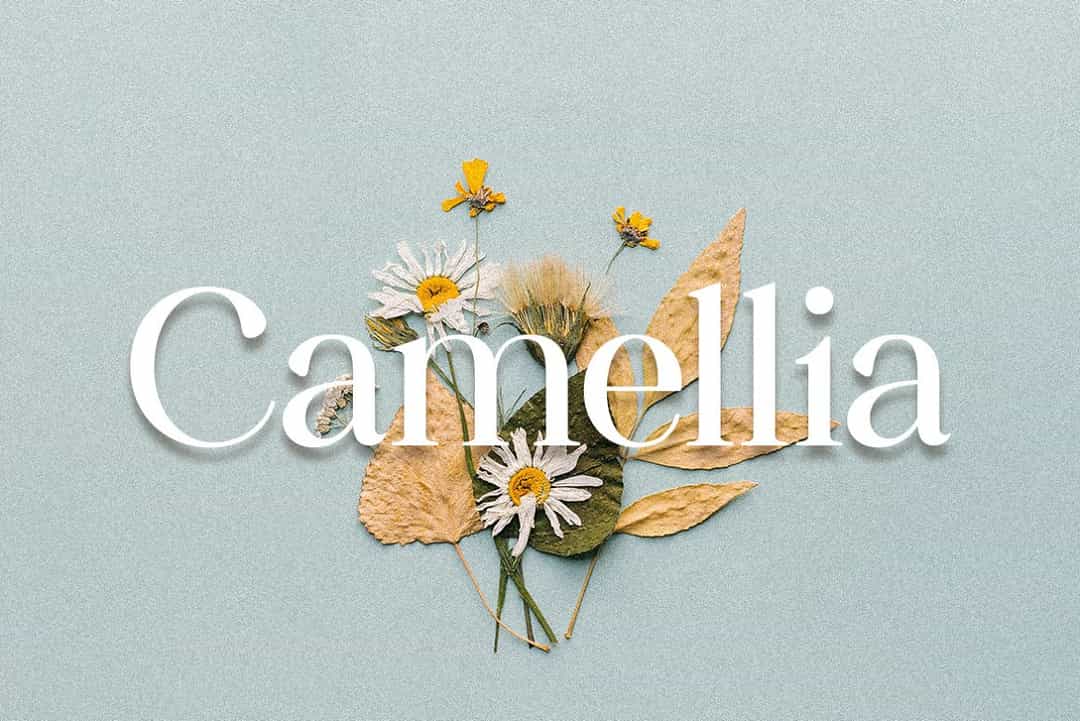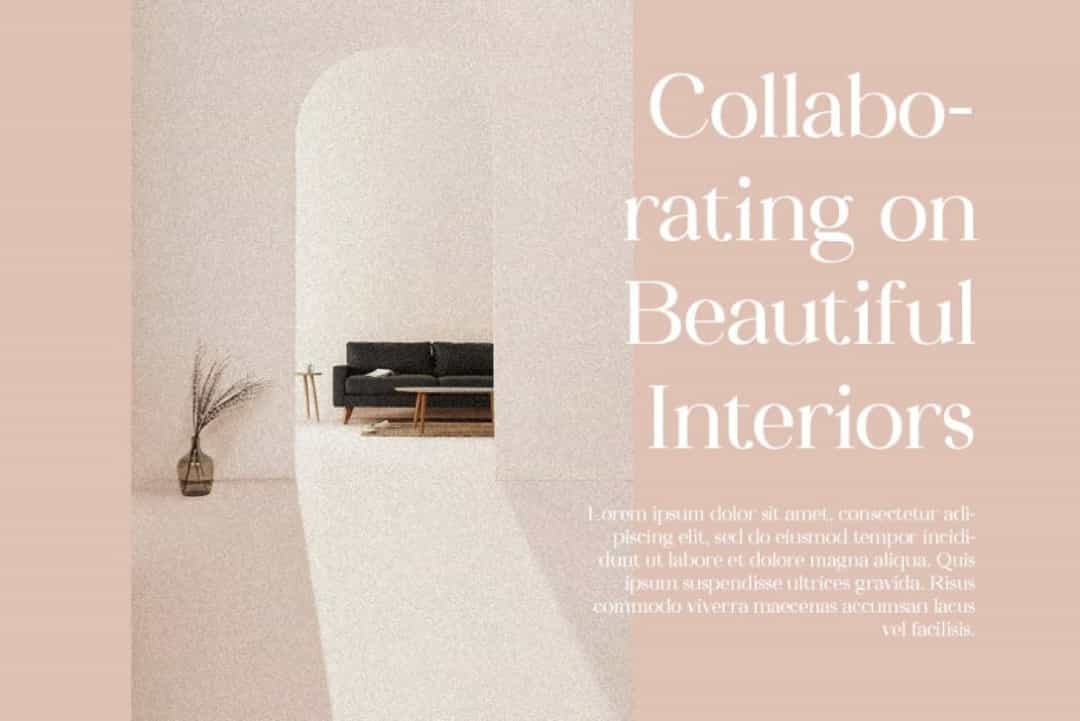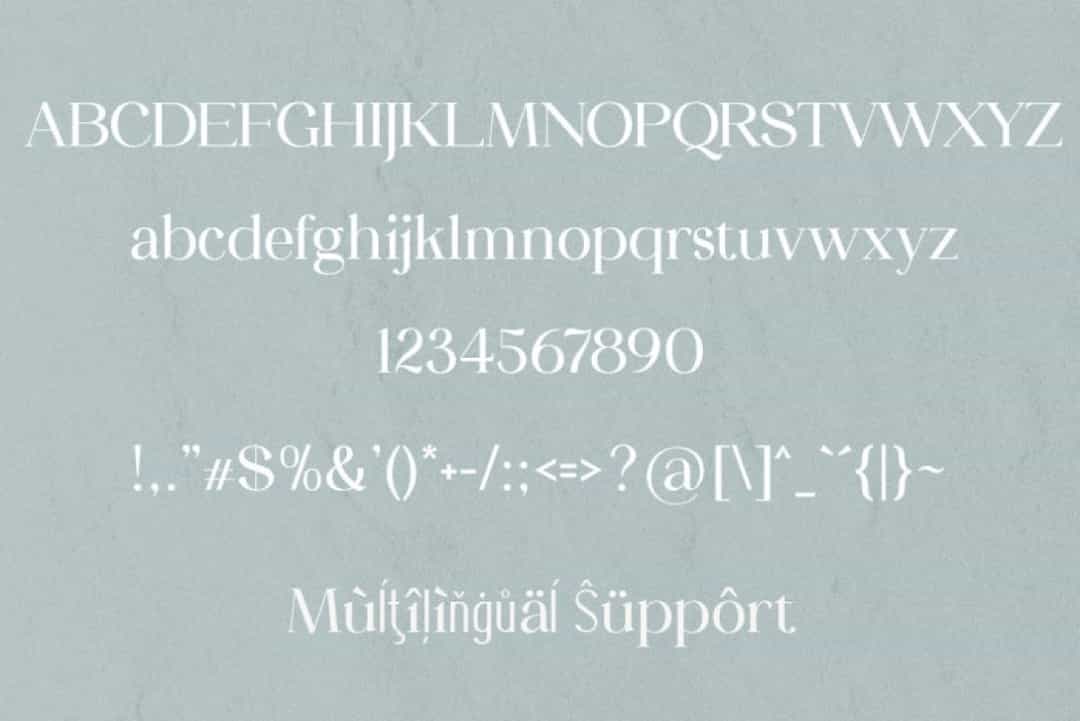
Camellia is a contemporary serif typeface which boasts crisp lines and sharp corners, making it an extremely versatile font suitable for many different applications including weddings, logos, invitations, advertising quotes, magazine articles etc. Camellia can also be printed for many uses such as advertisements. Print or many more.